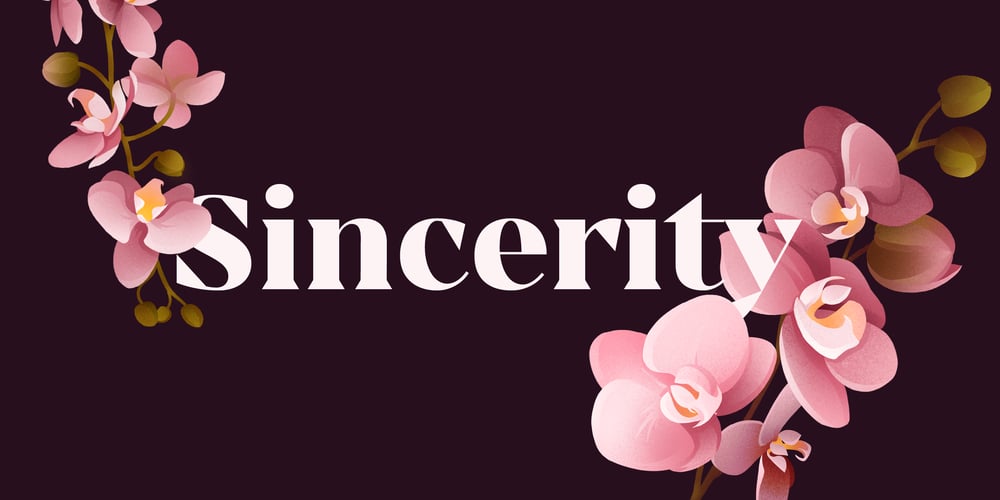
Sincerity
Sincerity font
Sincerity Font Family was designed by Océane Moutot and published by Océane Moutot. Sincerity contains 14 styles and family package options. Sincerity is an elegant and strong typeface identified by its high contrast, its sharp shapes and triangular serifs.Inspired by the Didone style, Sincerity adds modernity and some unique features to it. It offers a large choice of uses, from titles of magazines to newspapers, logotypes and so on. Sincerity is available in 16 styles, from thin to black in roman and italic.